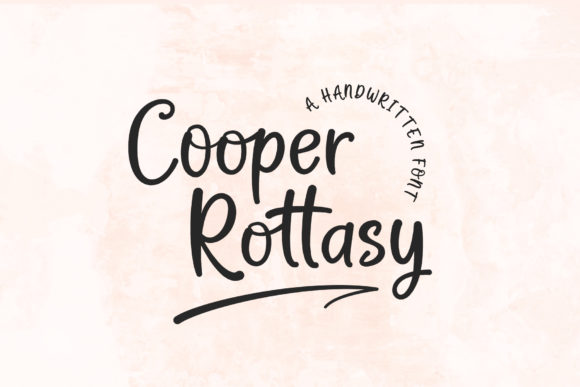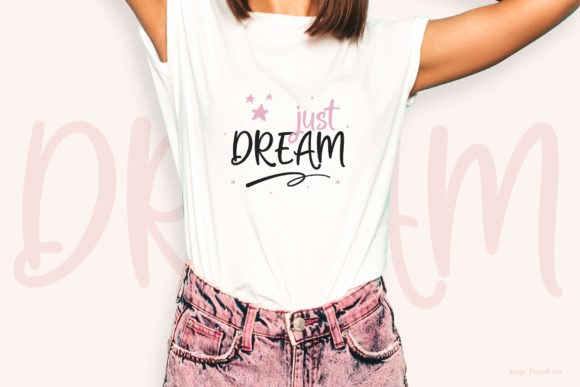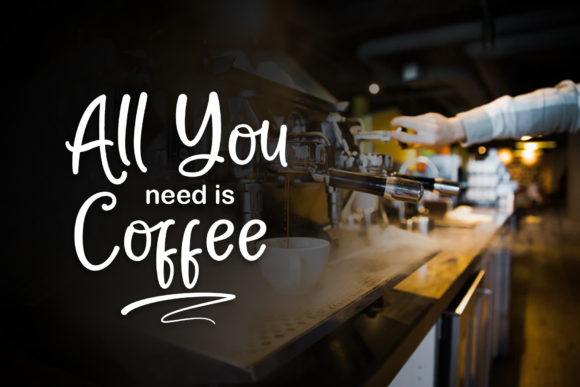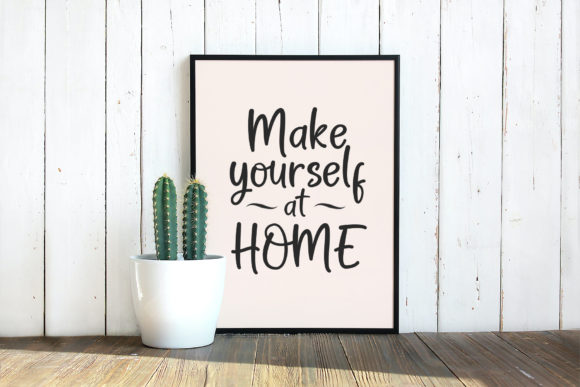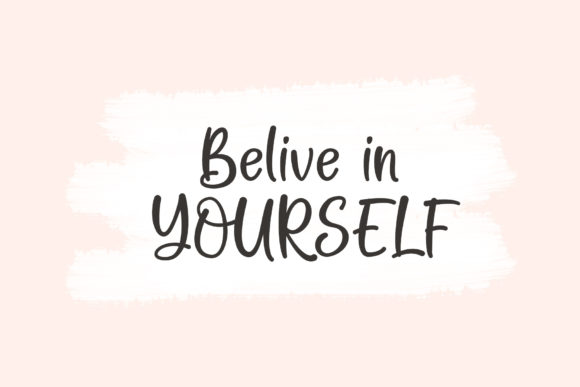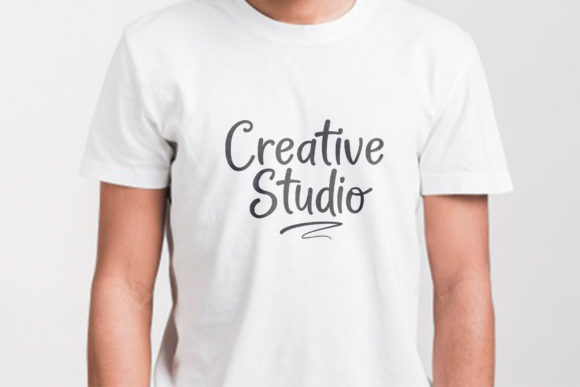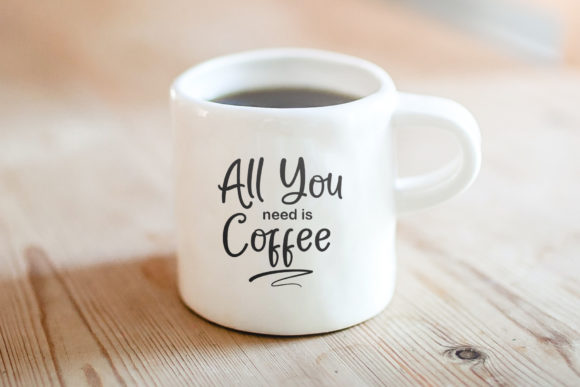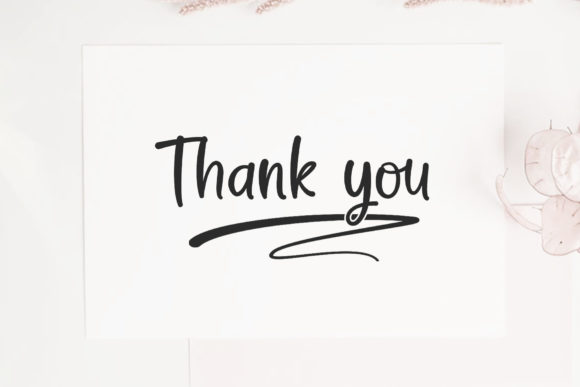
Cooper Rottasy Font
About Cooper Rottasy Font
Cooper Rottasy is a cute handwritten font. It features gorgeous swashes and ligatures that make this script incredibly versatile. Whether you’re looking for fonts for Instagram or calligraphy scripts for DIY projects, Cooper Rottasy will turn any creative idea into a true piece of art!